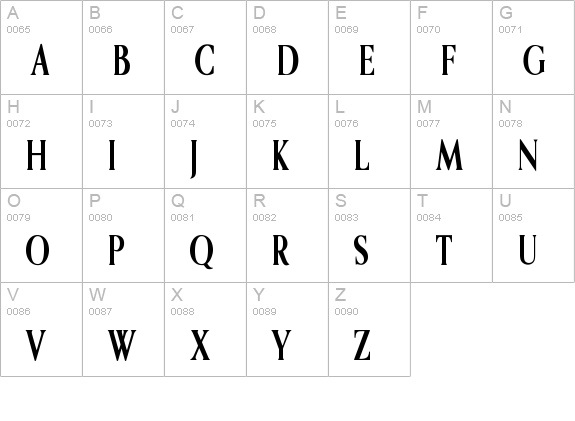
Tedeus Font Details
Introducing Tedeus, a captivating and versatile font that effortlessly combines modern sophistication with timeless elegance. Its clean lines and balanced curves make it the perfect choice for a wide range of design projects. Whether you're designing a logo, creating stunning headlines, or crafting an eye-catching poster, Tedeus will bring a touch of refined style to your work. With a generous selection of characters, Tedeus offers endless possibilities for creative expression. From sleek and minimalist to bold and expressive, this font allows you to effortlessly convey your message with clarity and impact. Its versatility is further enhanced by its variety of weights and styles, ensuring that you can find the perfect fit for any project. But what truly sets Tedeus apart is its accessibility. This incredible font is available to download for free at FontsMarket.com, making it easily accessible to designers and creatives alike. Now, you can add this exceptional font to your collection without breaking the bank. Whether you're a seasoned professional or a passionate hobbyist, Tedeus offers a high-quality typographic solution that won't cost you a penny. So why wait? Download Tedeus today and unlock the potential of this extraordinary font. Experience the seamless blending of modern design and timeless elegance, all at your fingertips. With its free availability, there's no reason not to enhance your creative endeavors with the undeniable charm of Tedeus. Step into a world of limitless possibilities and let this remarkable font elevate your designs to new heights.